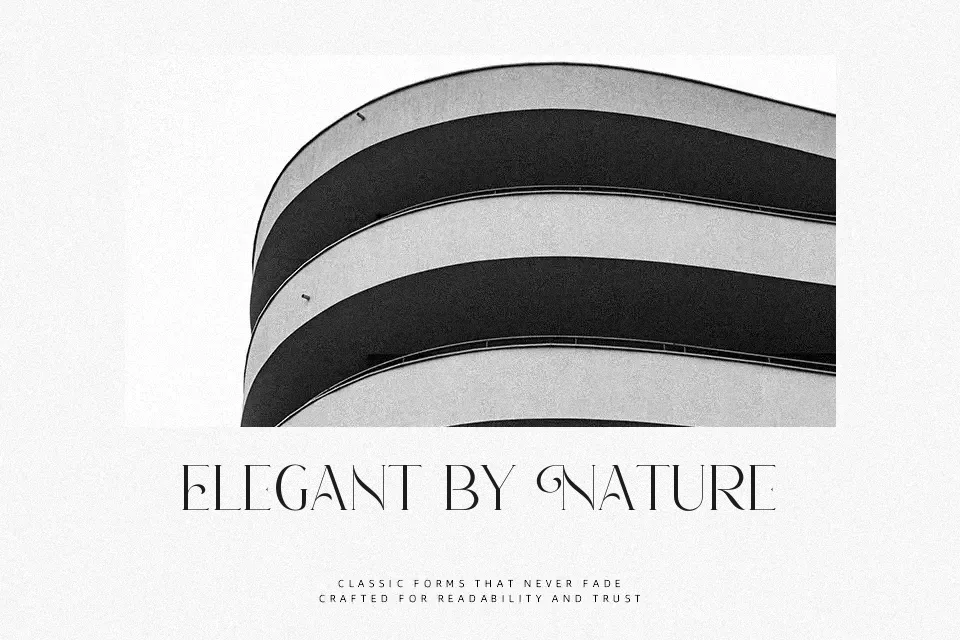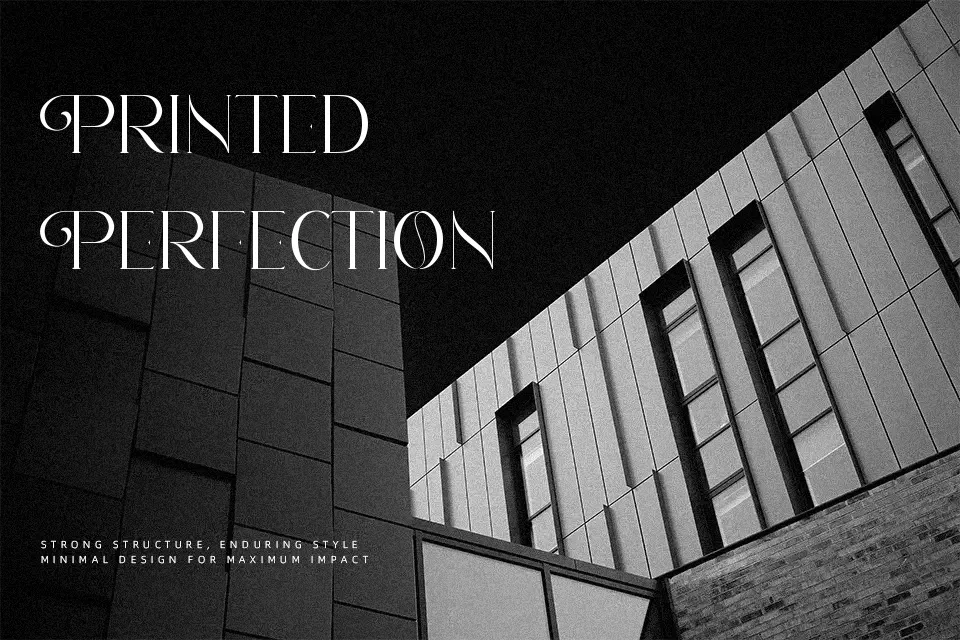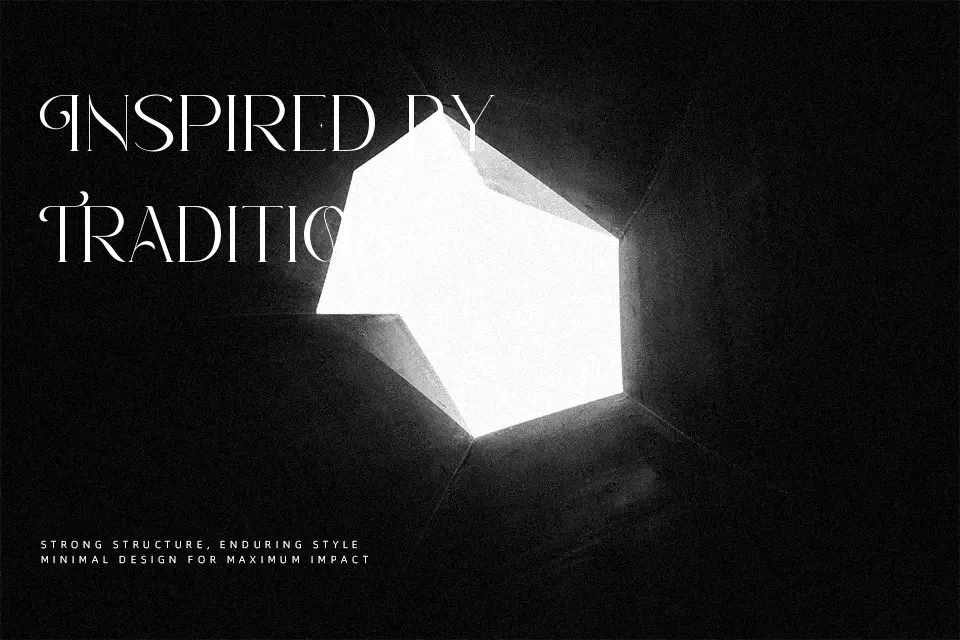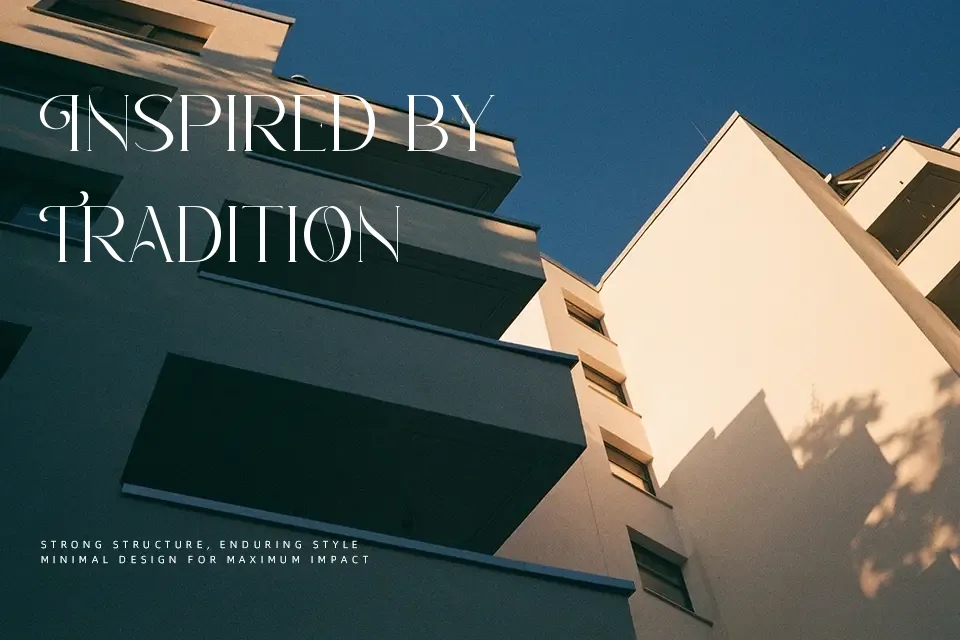
Romantic Serif Font
Romantic Serif Font establishes a strong visual presence with its high-contrast strokes and refined, elegant structure. The balanced proportions and carefully sculpted terminals create a sophisticated rhythm across short display text, making it highly effective for premium packaging or wedding stationary. Its graceful detailing truly shines when utilized at larger point sizes, where the classic aesthetic can be fully appreciated. The spacing helps maintain clarity in prominent headlines, ensuring the letterforms remain distinct. However, the delicate transitions and decorative nature of the serifs become less effective at smaller sizes. Dense paragraphs and long continuous reading scenarios will suffer from reduced legibility due to these intricate features.
luxury product packaging
wedding invitation headers
editorial magazine titles
cosmetic brand logos
spreadsheet data
Perfect for branding, editorial, and headline, with a classic and decorative style.